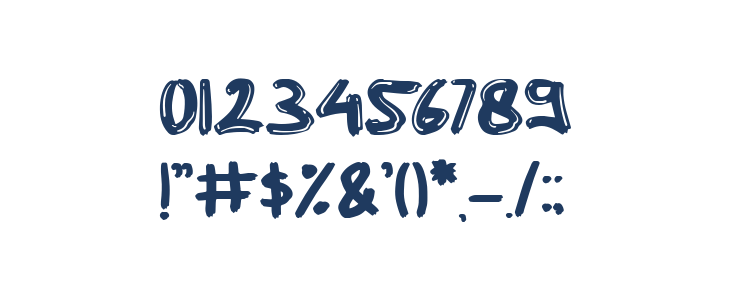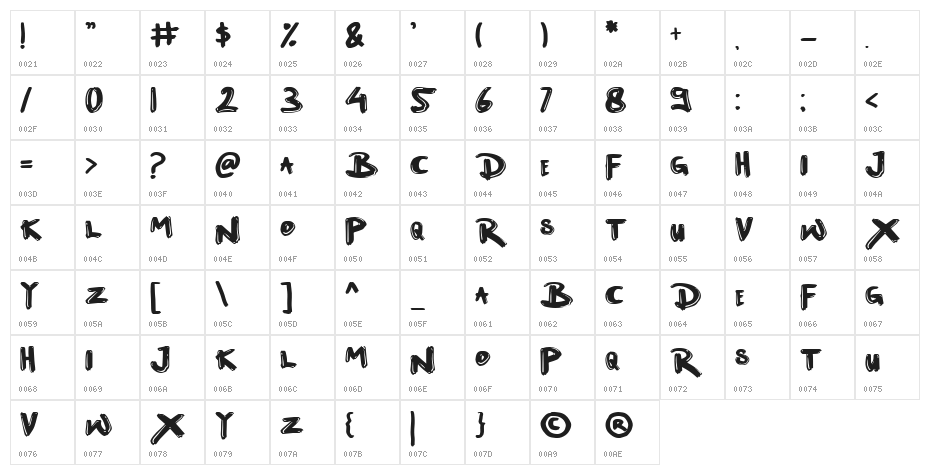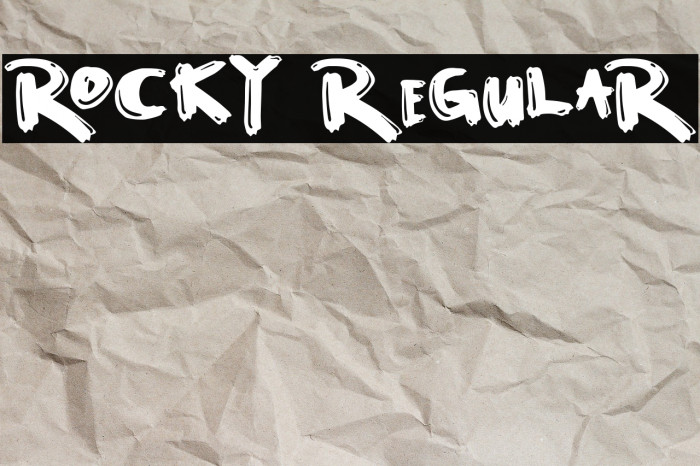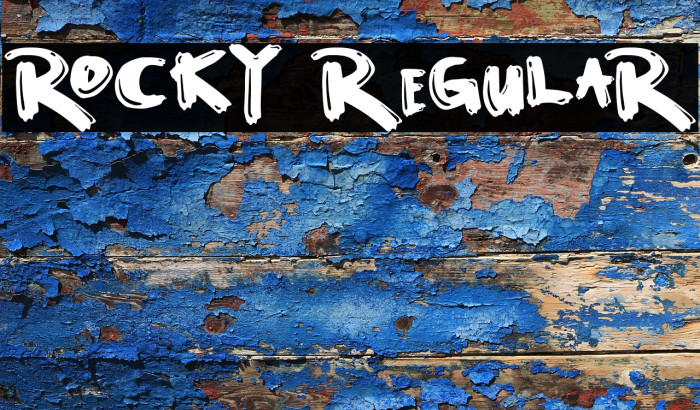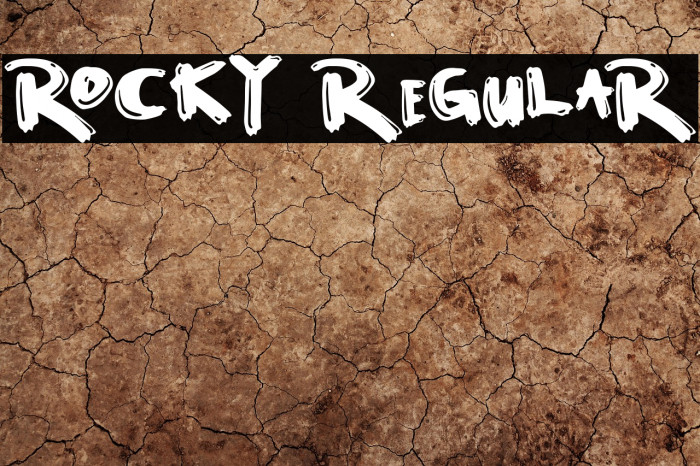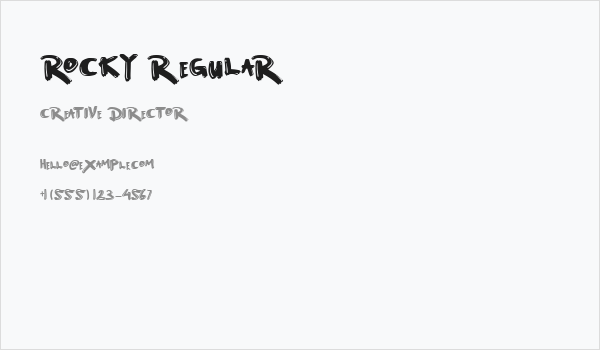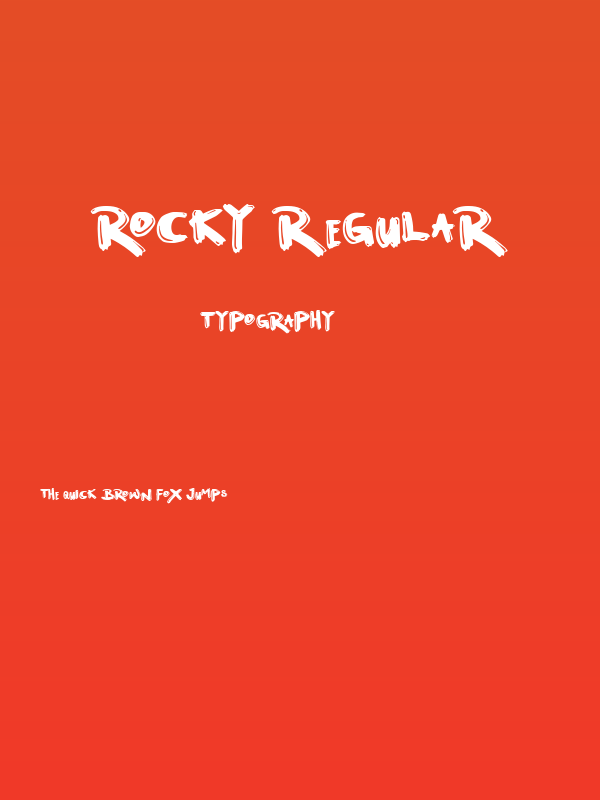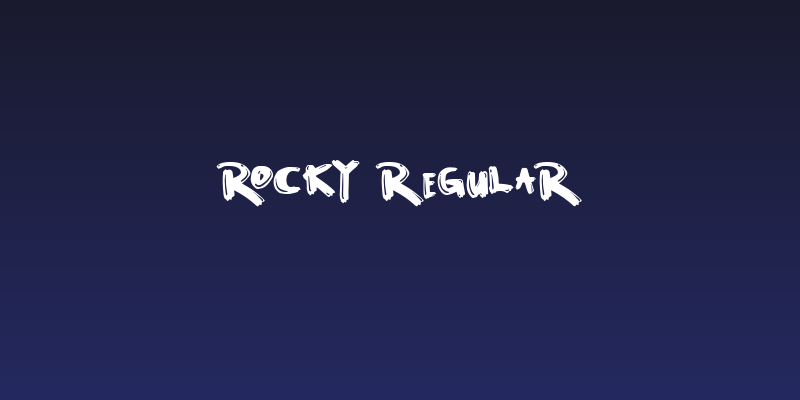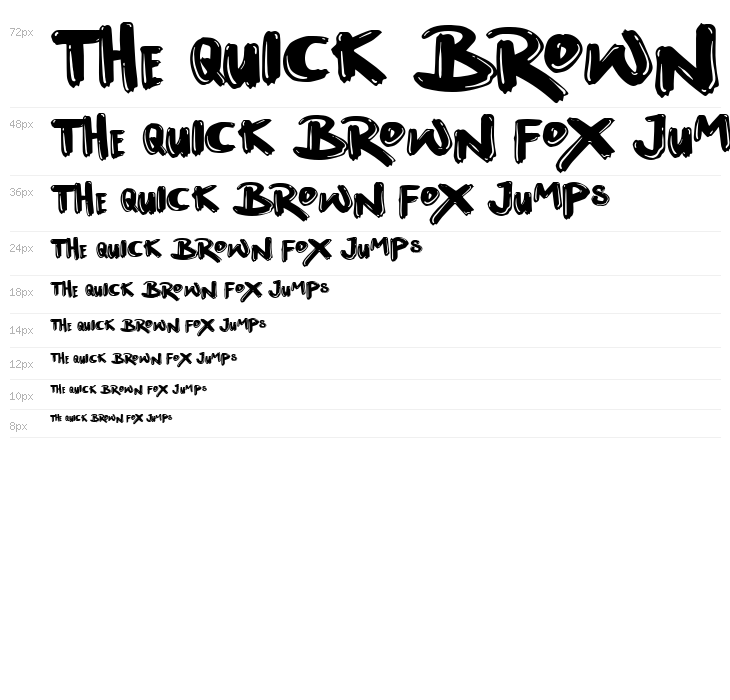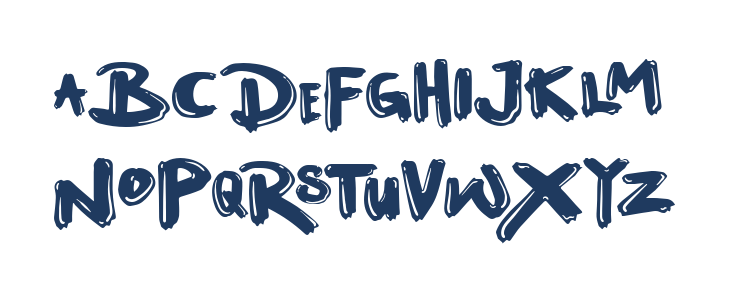
Rocky Regular Font
Rocky Regular Description
This font features a bold, expressive style with a brush-like appearance, giving it a dynamic and energetic feel. The letters are crafted with thick strokes and irregular edges, creating a sense of movement and spontaneity. The uppercase and lowercase letters maintain a consistent style, with a playful yet assertive character. Numbers and special characters are equally bold, ensuring a cohesive look across all text elements. The font's design is reminiscent of street art or graffiti, making it ideal for projects that require a strong visual impact.
| Overall Style | Modern, Artistic |
| Proposed Projects | Ideal for posters, album covers, streetwear branding, and any project needing a bold, artistic touch. |